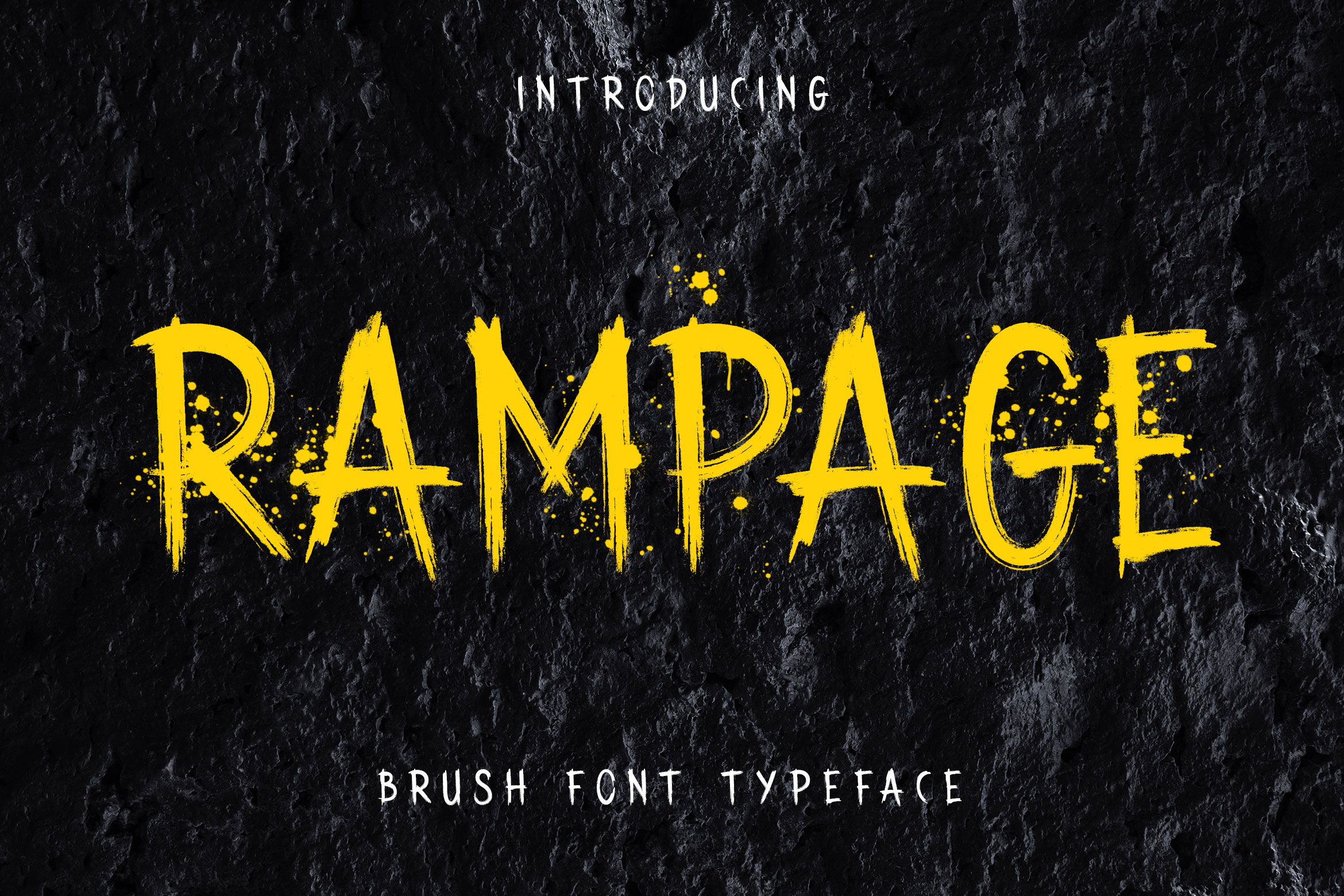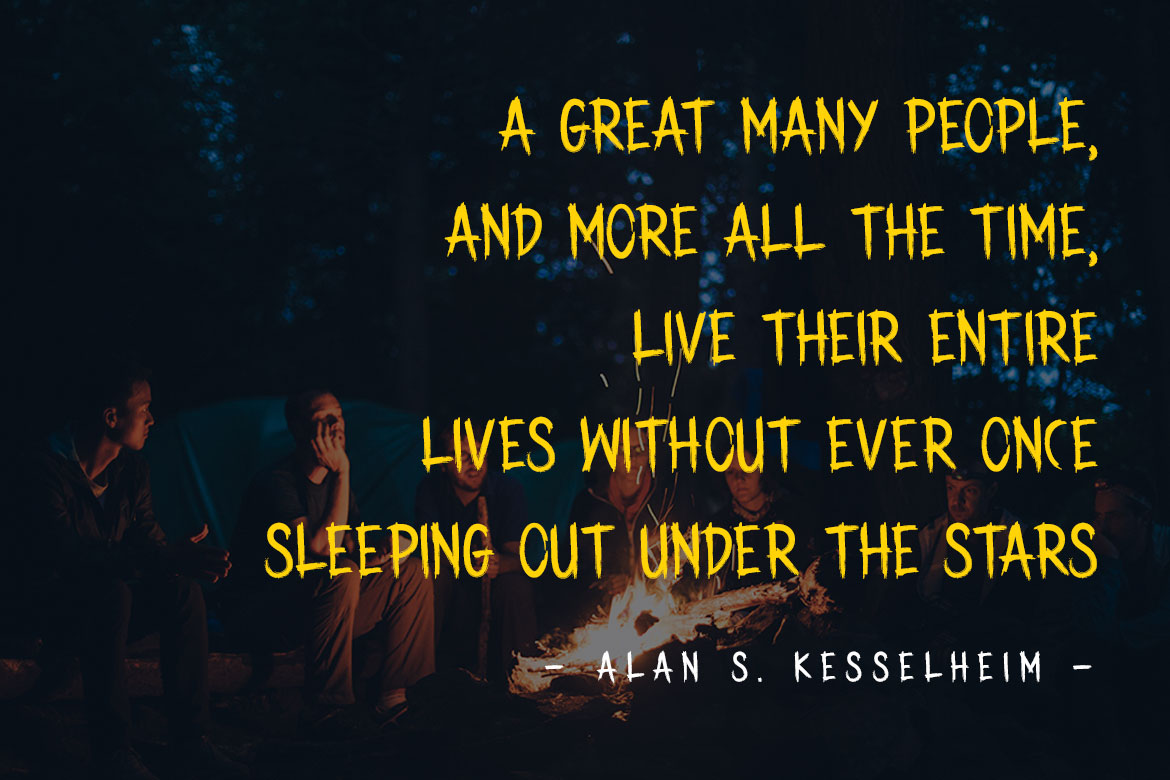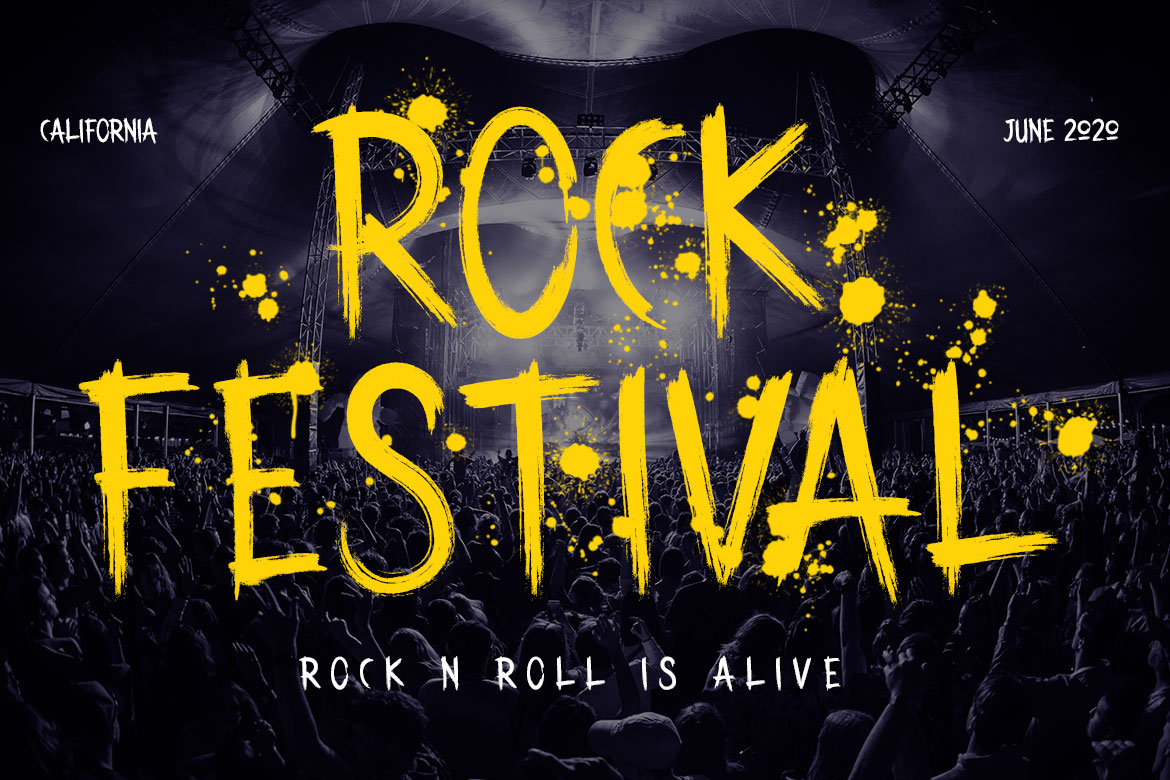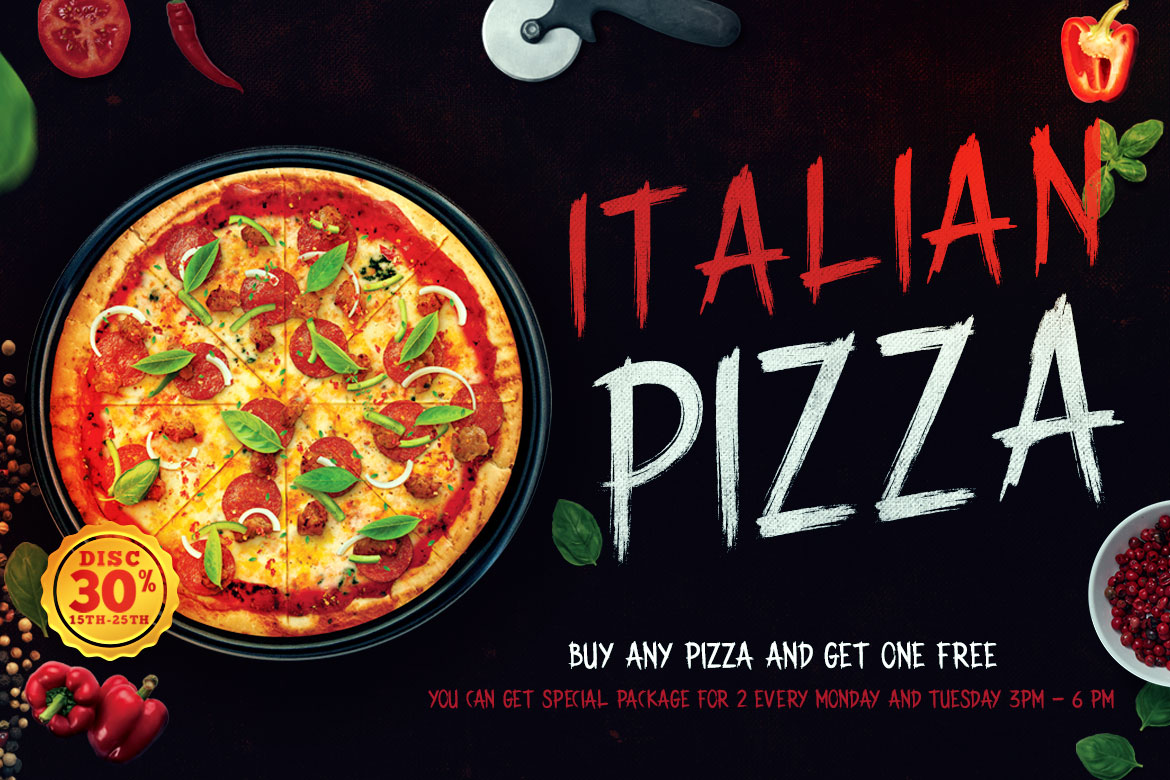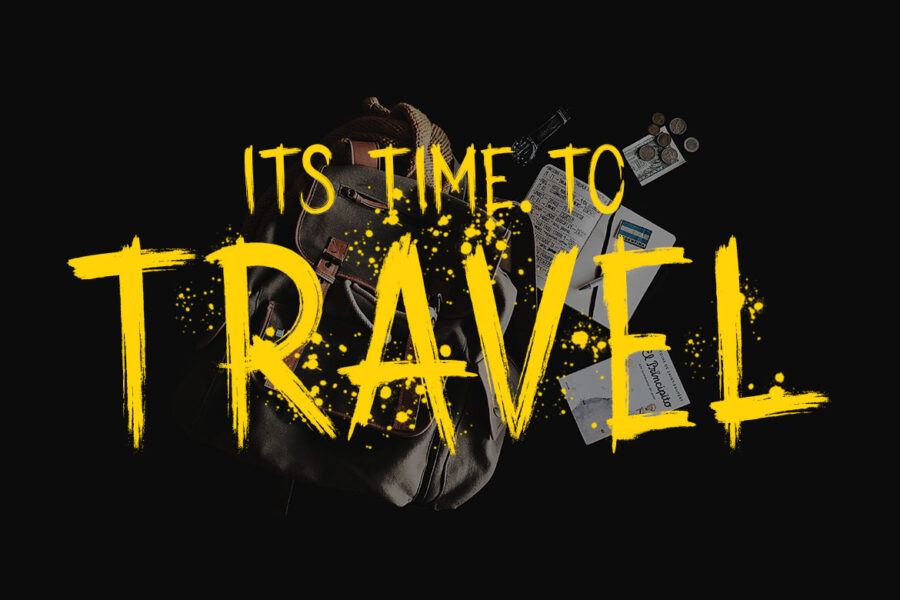
Rampage is a bold and untamed brush font that bursts with energy and personality. Designed to emulate the raw strokes of a paintbrush, Rampage brings a sense of rebellious spirit and explosive creativity to your designs. With rough edges, splash effects, and aggressive movement in each character, this font is perfect for projects that need to make a bold statement and grab attention.
Whether you’re creating artwork for music posters, streetwear brands, edgy food packaging, or thrilling adventure titles, Rampage delivers a punch of attitude. Its unique character makes it highly suitable for anything urban, energetic, or loud. Let Rampage be your weapon of choice when you want your typography to scream with style.
Rampage